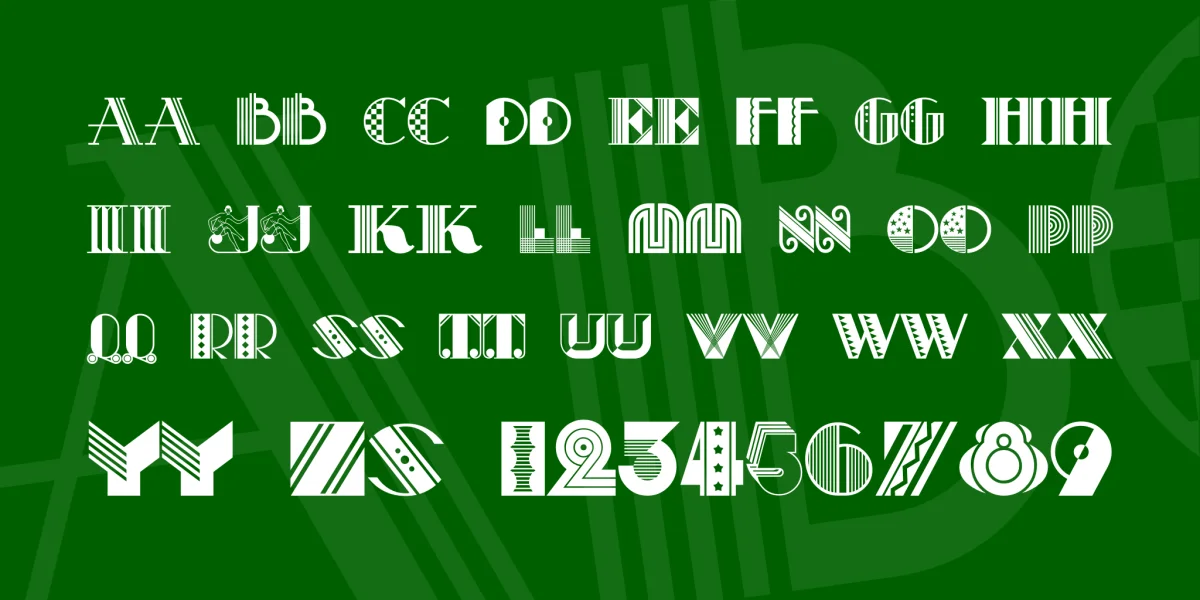
The name means “medley” in French and, indeed, that’s what this font is. There are at least thirty different styles lurking here and, one of these days, I may get around to creating full fonts from some of these characters. In the meantime, this particular effort offers some extreme examples on Deco letter architecture, suitable for initial cap use.